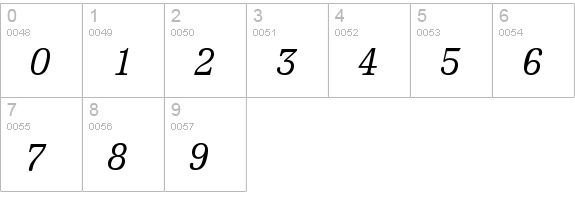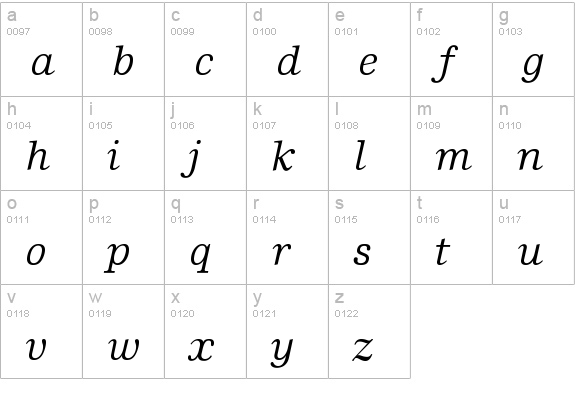
EdisonEF-BookItalic Font Details
Introducing the captivating and sophisticated EdisonEF-BookItalic font, a true gem in the realm of typography. With its elegant and curvaceous letterforms, this font exudes an air of timeless beauty and refinement. EdisonEF-BookItalic is the perfect choice for those seeking a font that effortlessly combines grace and versatility. Its slanted and italicized design adds a touch of dynamism to any project, making it ideal for conveying a sense of elegance and sophistication. What sets EdisonEF-BookItalic apart is not only its exceptional aesthetics but also its accessibility. This font is freely available to download at FontsMarket.com, allowing designers, creatives, and enthusiasts alike to easily incorporate its exquisite charm into their work. Whether you're designing a magazine layout, branding materials, invitations, or simply want to add a touch of class to your personal projects, EdisonEF-BookItalic is the ultimate choice. Its versatility knows no bounds, effortlessly complementing a wide range of styles and themes. With EdisonEF-BookItalic, every word and every sentence is transformed into a work of art. Its graceful curves and meticulously crafted details create a harmonious rhythm that captivates the eye and elevates the overall visual experience. In addition to its aesthetic appeal, EdisonEF-BookItalic also ensures legibility and readability, making it an excellent choice for both print and digital mediums. Whether it graces the pages of a book, a website, or a poster, this font effortlessly captures attention and leaves a lasting impression. Embrace the allure of EdisonEF-BookItalic and let its timeless elegance breathe life into your designs. Download this captivating font for free at FontsMarket.com and unlock a world of endless possibilities.